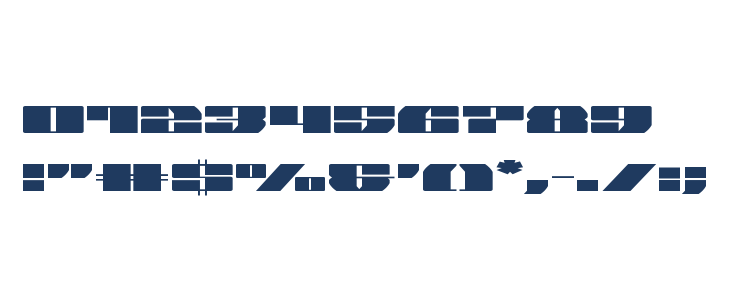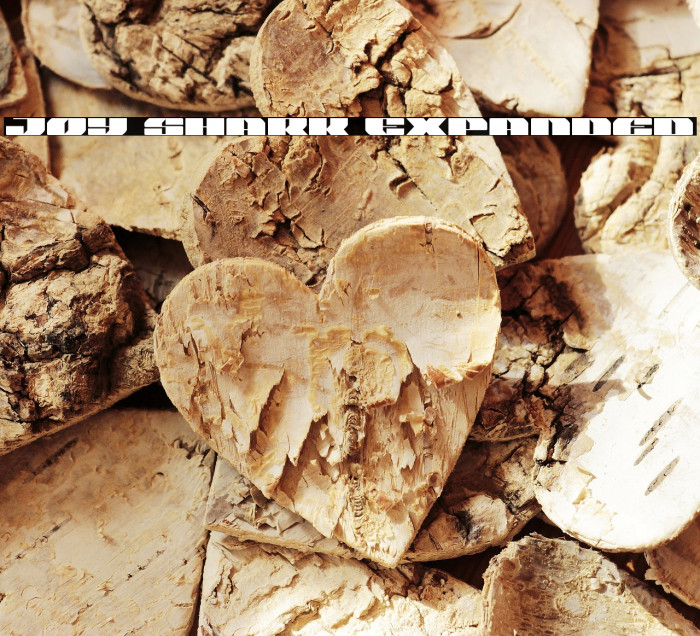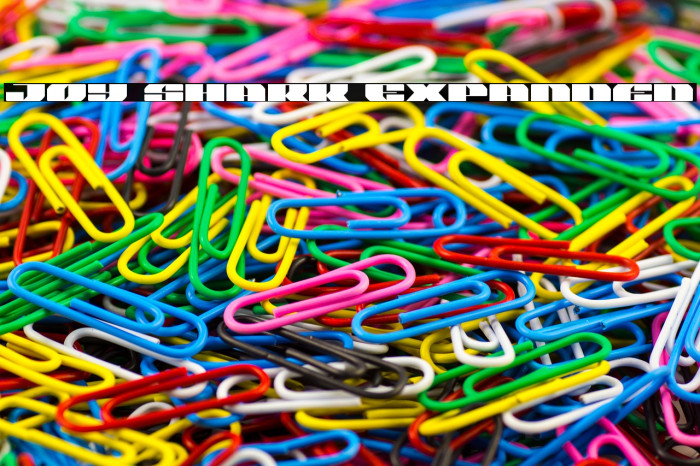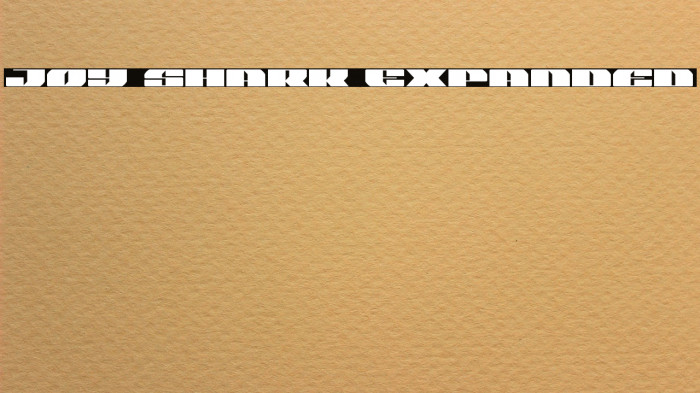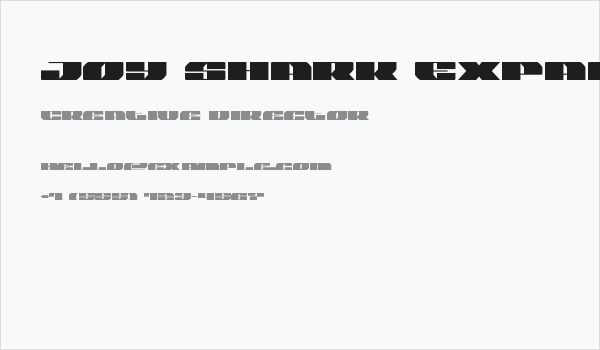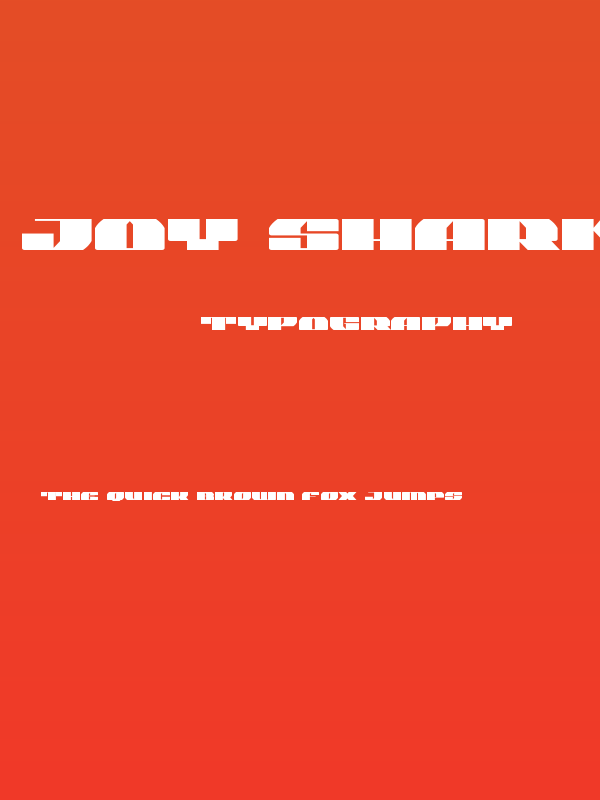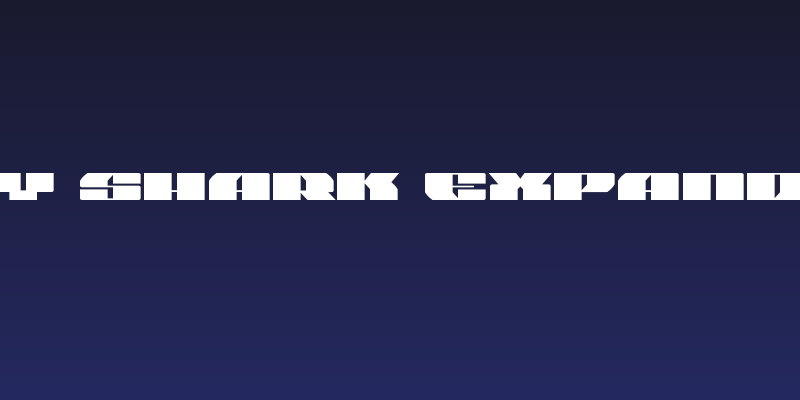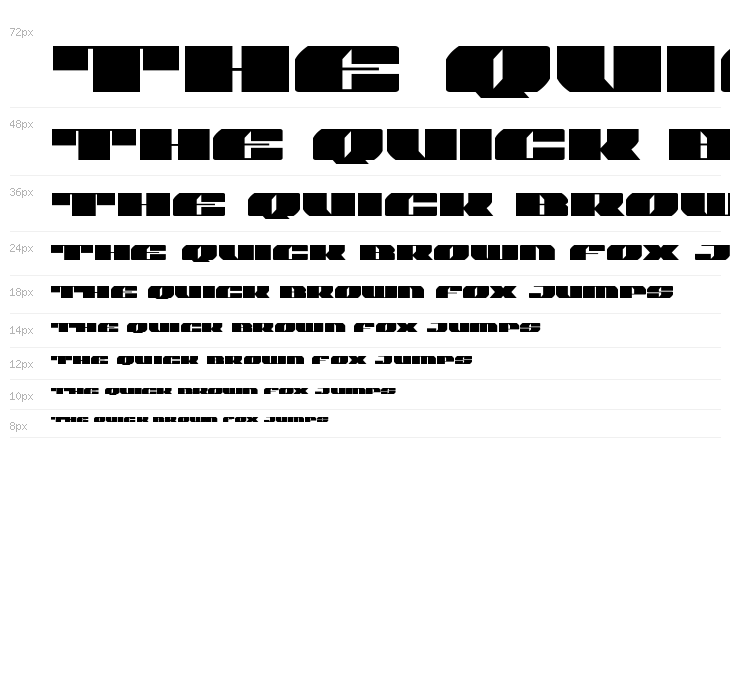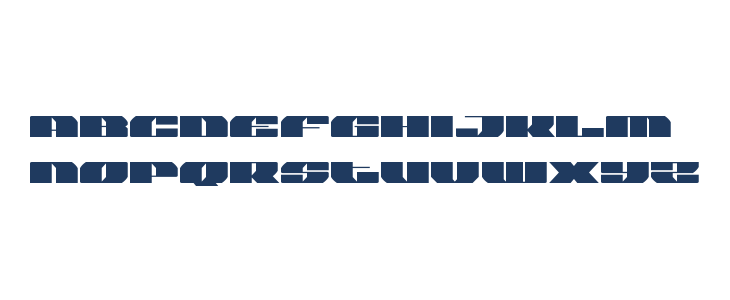
Joy Shark Expanded Font
Joy Shark Expanded Description
This font features a bold and geometric design with a distinctly modern and futuristic aesthetic. The characters are constructed with sharp angles and straight lines, creating a sense of strength and stability. The uppercase and lowercase letters maintain a consistent style, with the lowercase being slightly smaller but equally bold. Numbers and special characters are designed to match the overall geometric theme, ensuring uniformity across all elements. The font's expanded width gives it a commanding presence, making it ideal for attention-grabbing headlines or titles. The high contrast between the thick strokes and the negative space enhances readability while maintaining a striking visual impact.